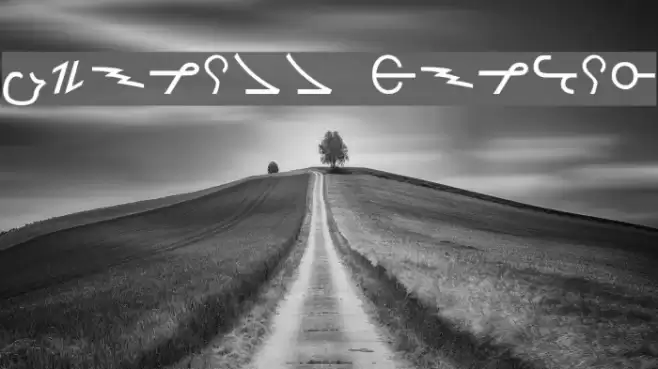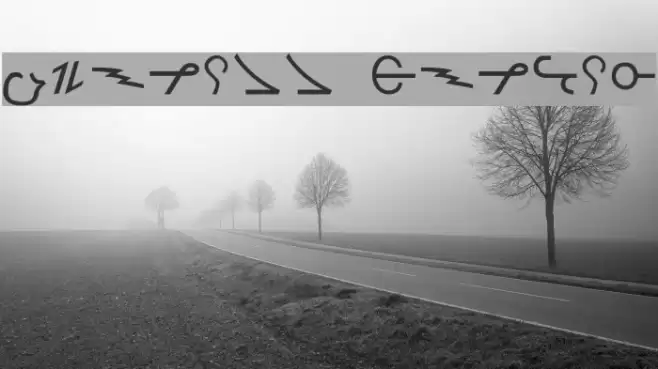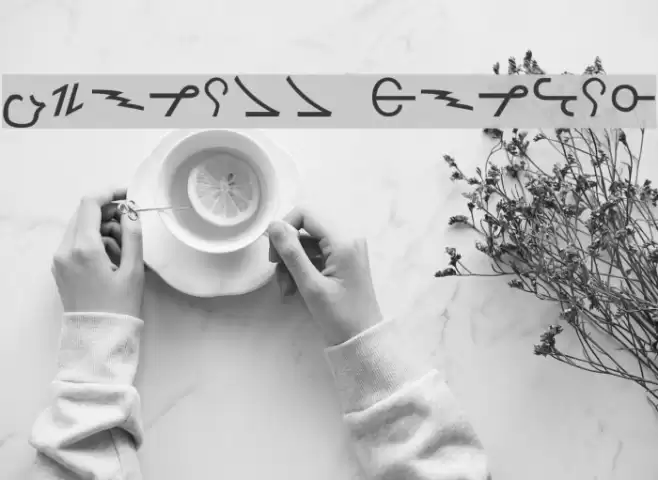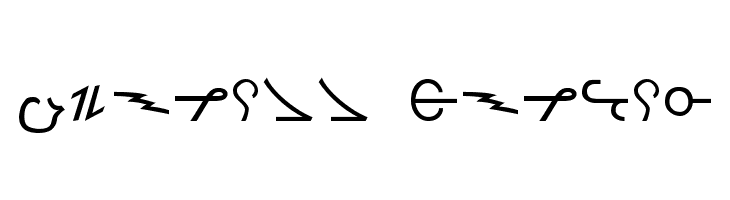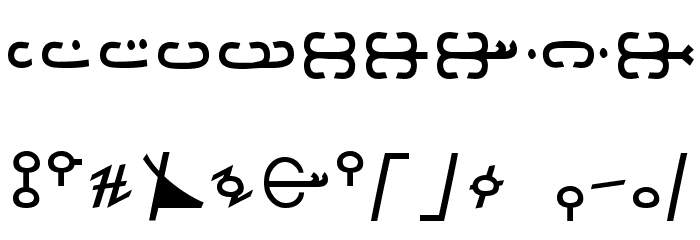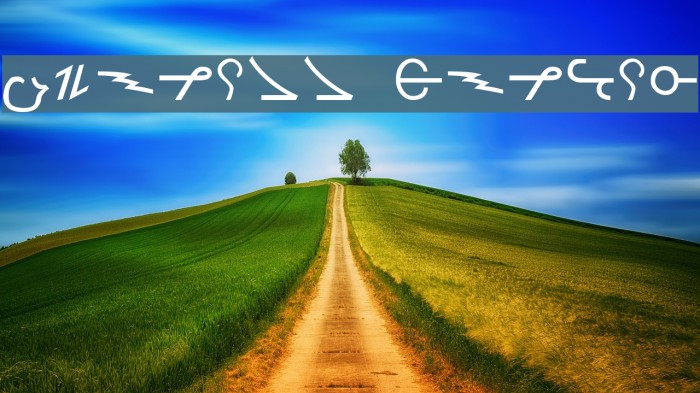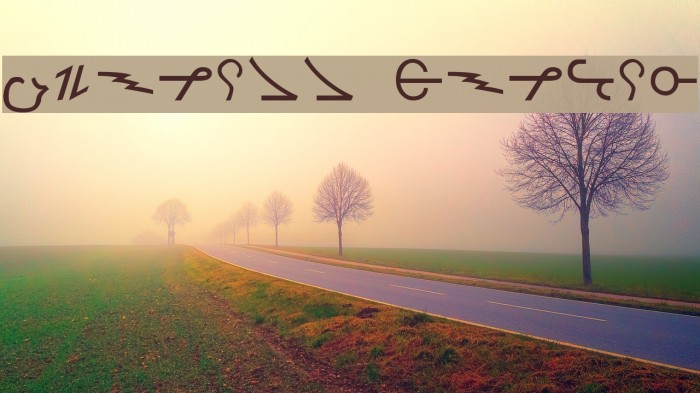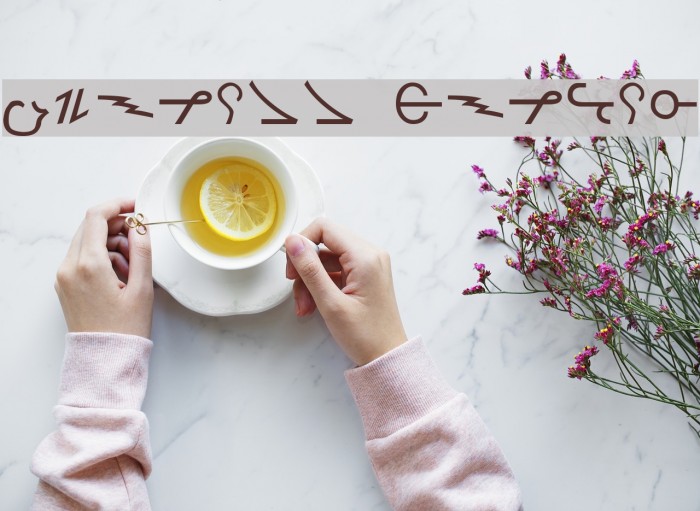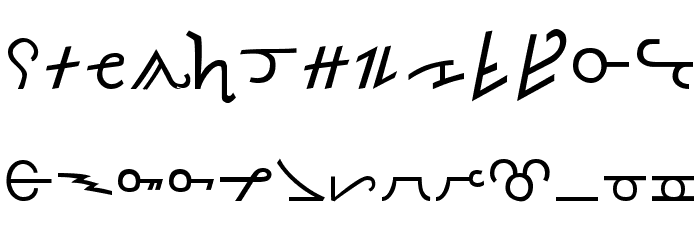
Thorass Normal Font
Thorass Normal Description
This font features a unique and decorative style with a fantasy-inspired design. The characters are highly stylized, incorporating elements that resemble ancient runes or symbols. Each letter and number is distinct, with varying line thickness and creative embellishments that give it an artistic flair. The special characters are equally ornate, adding to the overall mystical and enigmatic appearance of the font. This typeface is ideal for projects that require a touch of fantasy or a historical, mythical aesthetic.
A decorative, fantasy-inspired font with stylized, rune-like characters from Dingbats fonts.
- Proposed Projects: Ideal for fantasy-themed games, book covers, movie titles, or any project needing a mythical or ancient touch.
- Overall Style: Fantasy, Decorative
- Use Case: Logos, Titles, Posters